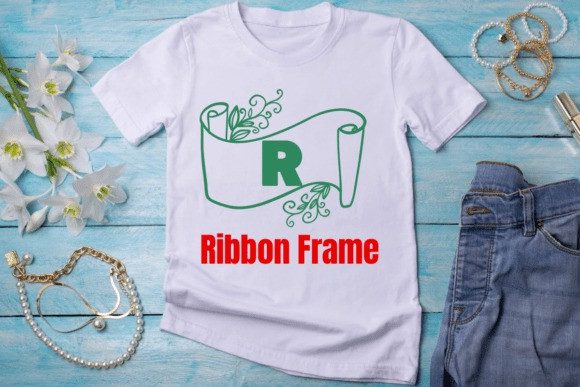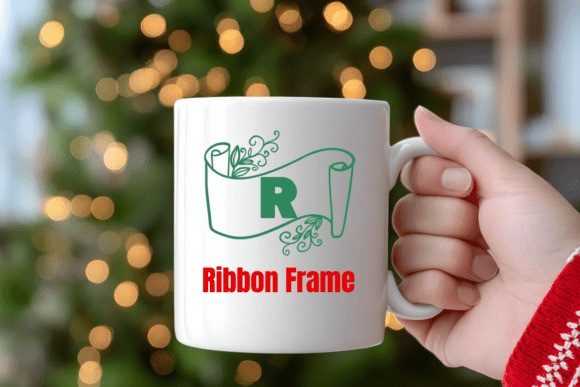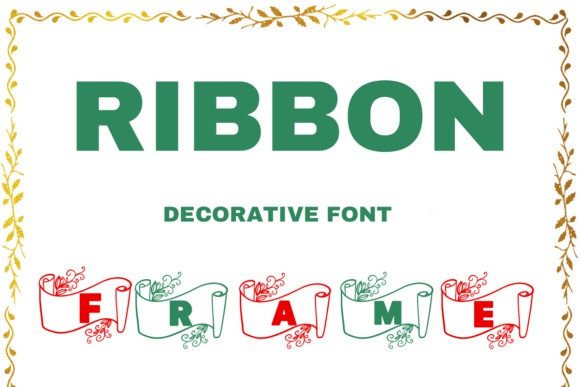
Ribbon Frame Font
Ribbon Frame Font is a highly decorative display font designed to emulate the elegance and festivity of ribbon-wrapped lettering.Each Ribbon Frame decorative character is embedded within an illustrated ribbon banner, alternating between sweeping red and green curls with ornate detailing, making it ideal for holiday themes, especially Christmas and festive invitations.
The font is best suited for single-word headers, initials, or monograms due to its ornamental complexity.
With its high-contrast vector design and precise linework, Ribbon Frame is tailored for large-scale print, signage, and seasonal packaging. It features uppercase letters with unique frame styles and is optimized for designs that require a bold, celebratory look.